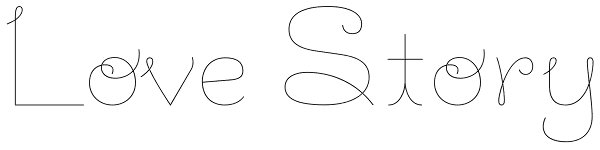
Love Story
Love story is a display hairline typeface for use in big sizes and short texts. It’s inspired by different kinds of love and specially designed for Valentine’s day. Its soft curves and sweet style give it a lovely personality. Designed by Luciano...